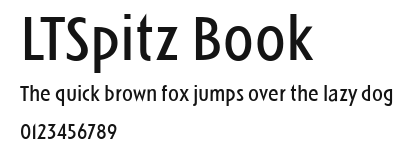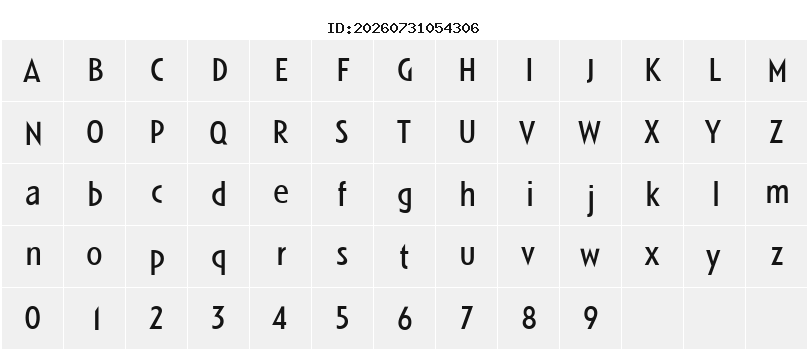
• Font Name: LTSpitz Book
• Full Font Name: Linotype Spitz Book
LTSpitz Book.ttf is a modern, elegant sans-serif font designed for ultimate readability and visual harmony. Perfect for branding, headlines, web design, and print materials.